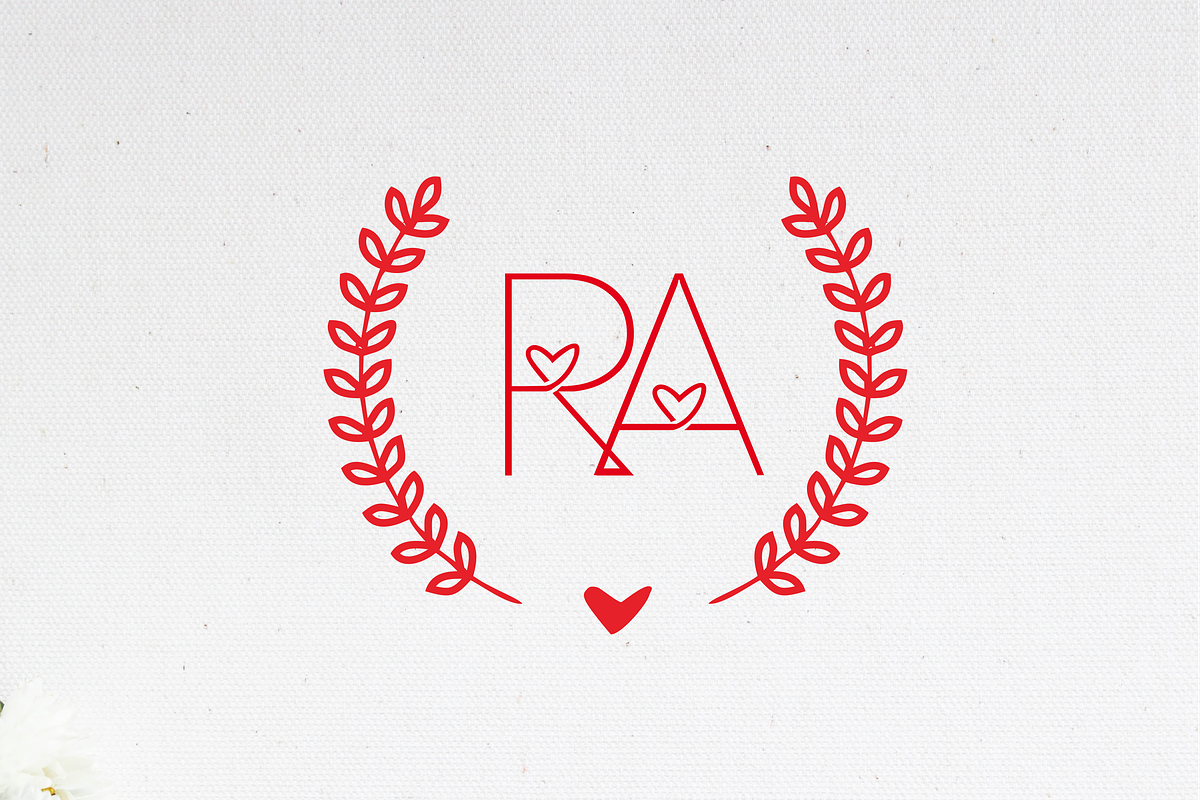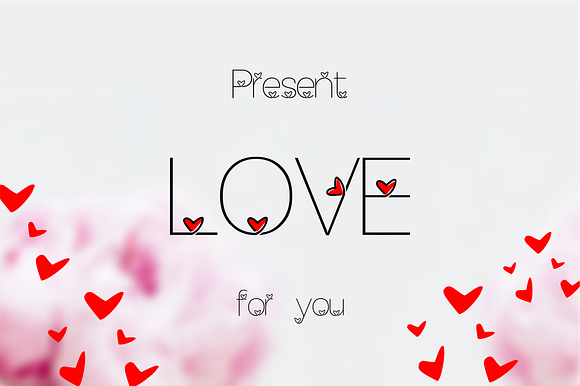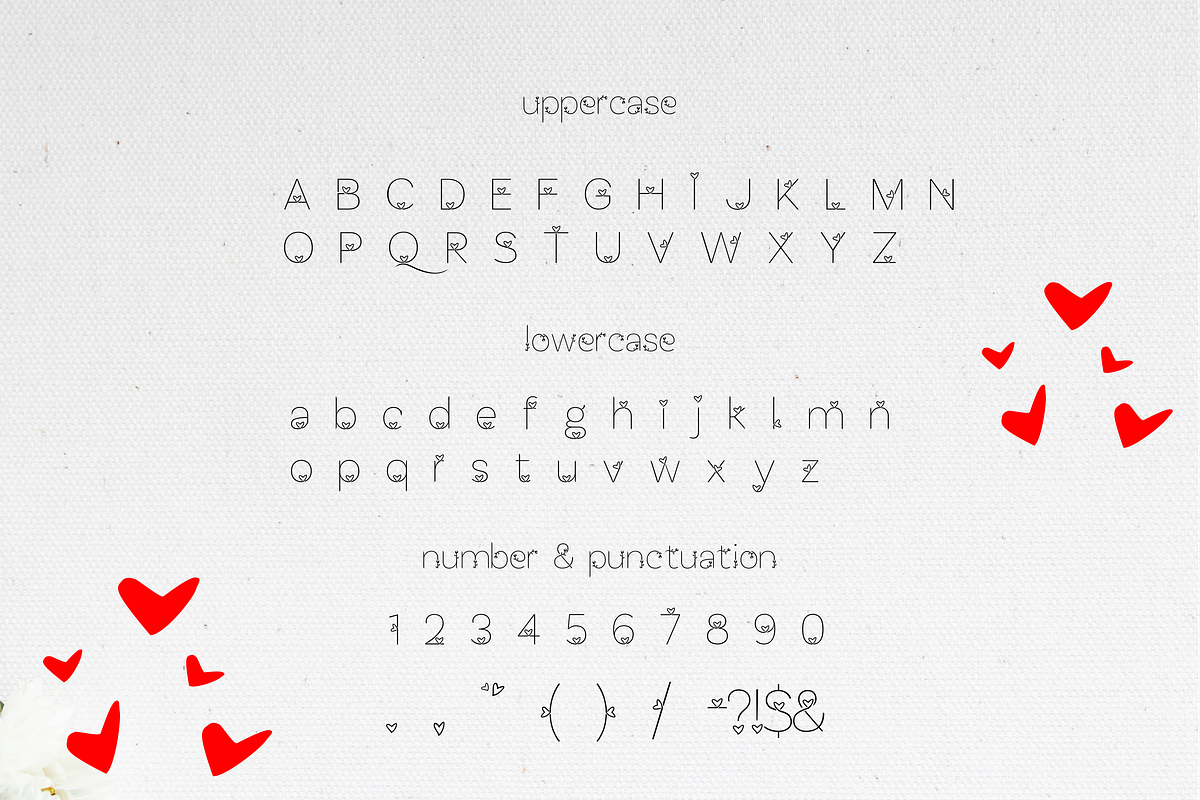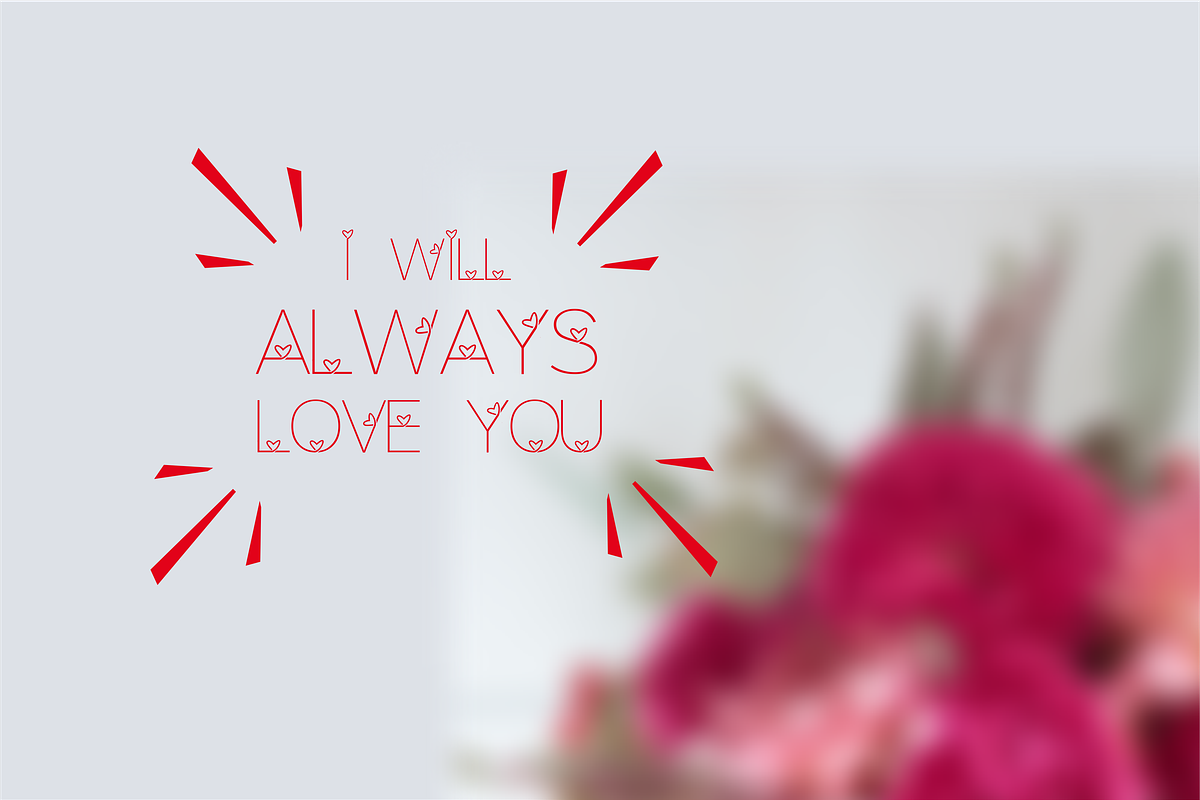
Lhove Font
Lhove font in Uppercase and lowercase letters so you'll be able to make your messages super-unique, logo, card, invitation or other related business, include otf and ttf file. for your valentine day
- Lhove font in Uppercase and lowercase letters so you'll be able to make your messages super-unique, logo, card, invitation or other related
Lhove Font by Akdesain fits naturally into Branding, posters, packaging, typography.